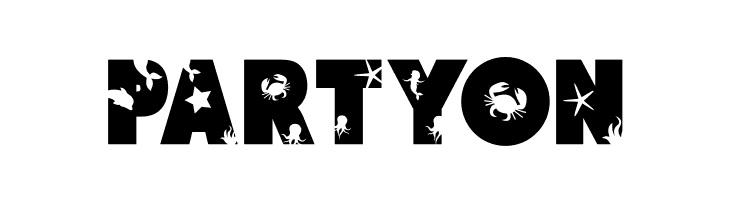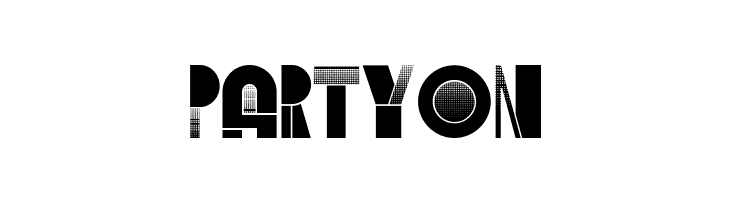
A decorative font with intricate curls and loops, offering a whimsical and artistic style.
A whimsical, cactus-themed font with a playful, hand-drawn style.
A playful, plant-themed decorative font with an italic slant.
A geometric and futuristic font with lines and dots, ideal for modern and sci-fi themes.
A playful, apple-themed decorative font with bold, rounded characters.
A geometric Art Deco font with sharp angles and smooth curves.
A bold, geometric font with angular shapes and solid fills, ideal for impactful designs.
A 3D grid-style font with a mechanical, industrial look.
A bold, 3D font with a shadow effect and diagonal line texture.
A bold, playful font with circular motifs and a modern decorative style.
Bold, playful font with ocean animal motifs in each character.
A decorative font with intricate wave patterns in each character.
A decorative blackletter font with intricate curves and sharp angles.
A bold, industrial-style font with circular embellishments for a playful yet strong appearance.
A playful, italicized font with a unique dot pattern and high contrast strokes.
A clean, modern font with balanced spacing and clear characters.
A pictographic, hand-drawn font inspired by ancient cave art.
A bold, whimsical font with playful swirls and curls.